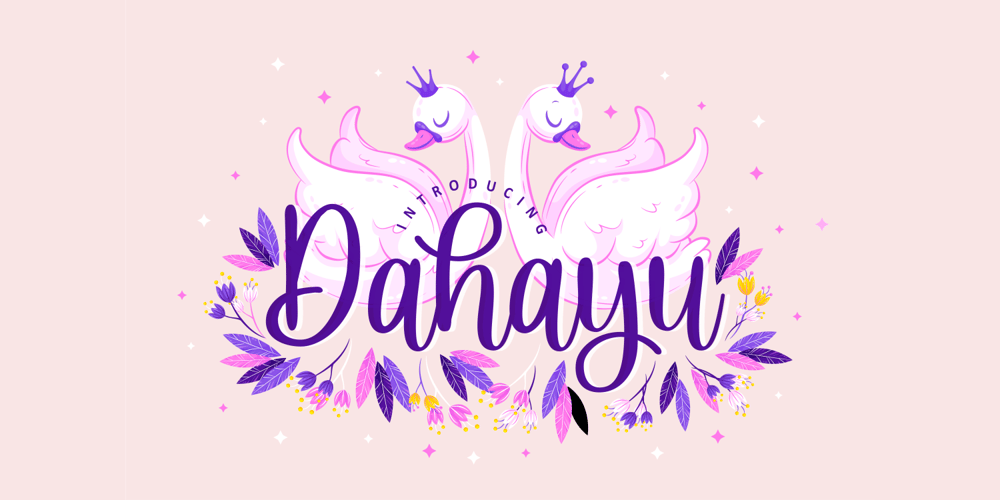
Dahayu Font Family was designed by Miftahul Habib and published by Tlatous Type. Dahayu contains 1 styles and family package options. Dahayu is a handwritten script font With high contrast stroke and fun character. Dahayu handwritten script font support multilingual more than 100+ language. This font is good for logo design, Social media, Movie Titles, Books Titles, a short text even a long text letter and good for your secondary text font with sans or serif. Make a stunning work with Dahayu handwritten script font.